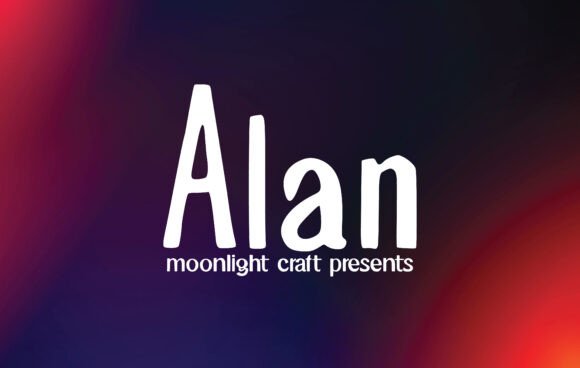
Discover the Beauty of Alan Font: Elevate Your Designs with this Lovely Handwritten Font
Are you a designer or crafter looking for a font that can take your creative ideas to the next level? Look no further than Alan Font, a stunning handwritten font that is sure to capture the attention of your audience. With its unique and elegant style, Alan Font is the perfect choice for creating eye-catching logos, branding, and quotes that will leave a lasting impression.
What Makes Alan Font So Special?
Alan Font is a beautifully crafted handwritten font that boasts a range of characteristics that set it apart from other fonts. Its flowing lines, delicate curves, and charming imperfections give it a personal and organic feel that is sure to resonate with your audience. Whether you’re looking to create a logo, branding materials, or social media graphics, Alan Font is the perfect choice for adding a touch of elegance and sophistication to your designs.
The Benefits of Using Alan Font
So why choose Alan Font for your design projects? Here are just a few benefits of using this lovely handwritten font:
- Elegant and Sophisticated: Alan Font adds a touch of elegance and sophistication to any design, making it perfect for high-end branding and luxury products.
- Unique and Memorable: The unique style of Alan Font ensures that your designs will stand out from the crowd and be remembered by your audience.
- Versatile: Alan Font is versatile and can be used for a range of design projects, from logos and branding to quotes and social media graphics.
- Easy to Read: Despite its elegant style, Alan Font is easy to read, making it perfect for use in body text and captions.
How to Use Alan Font in Your Designs
Using Alan Font in your designs is easy. Here are a few tips to get you started:
- Pair it with Bold Fonts: Pair Alan Font with bold fonts to create a striking contrast that will make your designs pop.
- Use it for Headings: Use Alan Font for headings and titles to add a touch of elegance and sophistication to your designs.
- Add Texture and Patterns: Add texture and patterns to your designs to give them a more organic and personal feel.
Who Can Benefit from Using Alan Font?
Alan Font is perfect for a range of designers and crafters, including:
- Graphic Designers: Graphic designers can use Alan Font to create stunning logos, branding materials, and social media graphics.
- Illustrators: Illustrators can use Alan Font to add a touch of elegance and sophistication to their illustrations.
- Crafters: Crafters can use Alan Font to create beautiful handmade cards, gift tags, and other paper crafts.
In conclusion, Alan Font is a beautiful handwritten font that has the potential to take your creative ideas to the highest level. With its elegant style, unique characteristics, and versatility, it’s the perfect choice for designers and crafters looking to create eye-catching logos, branding, and quotes. So why not give Alan Font a try and see the difference it can make in your designs?
Whether you’re a seasoned designer or a crafter just starting out, Alan Font is sure to become a favorite in your design arsenal. So go ahead, get creative, and see what amazing designs you can create with Alan Font!